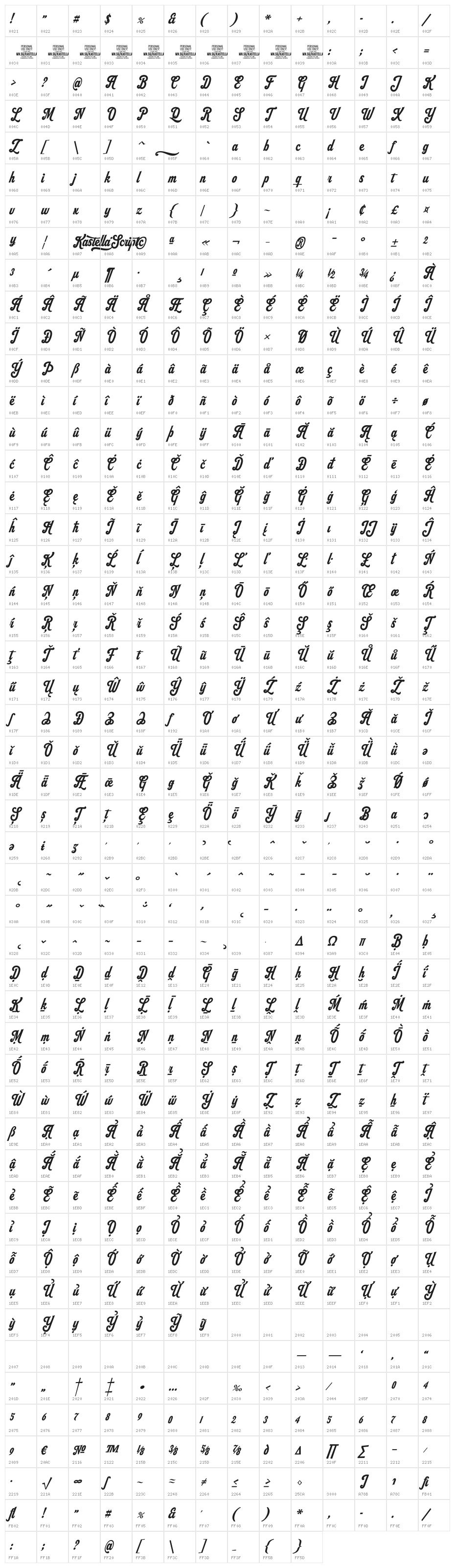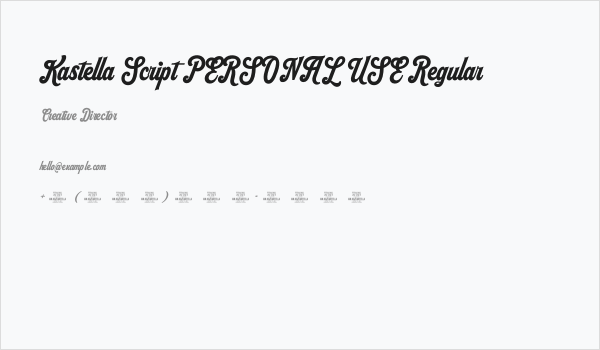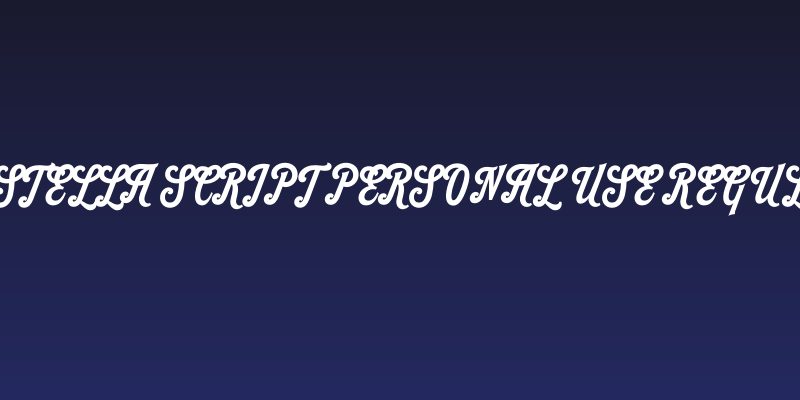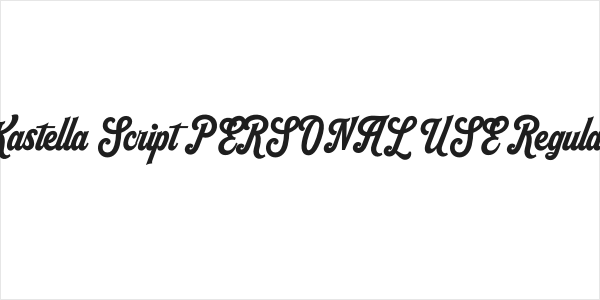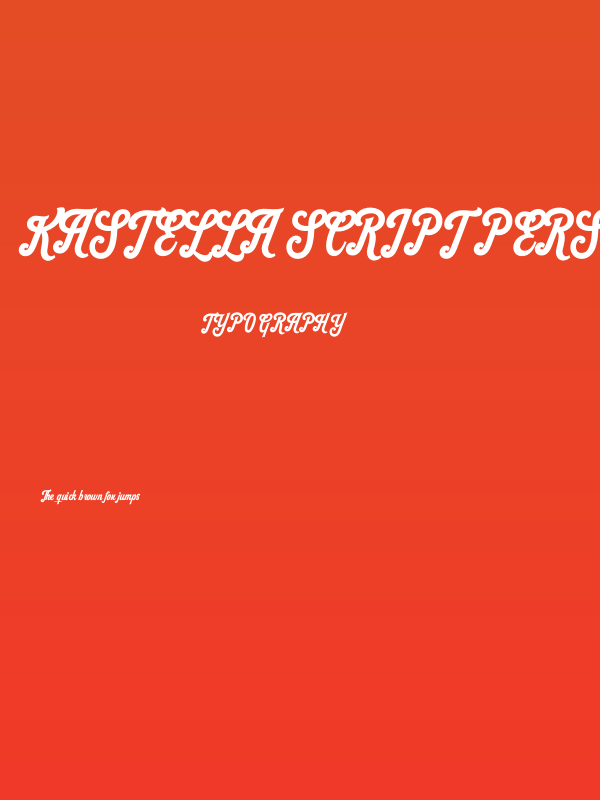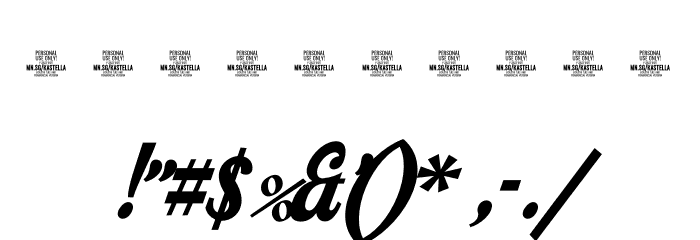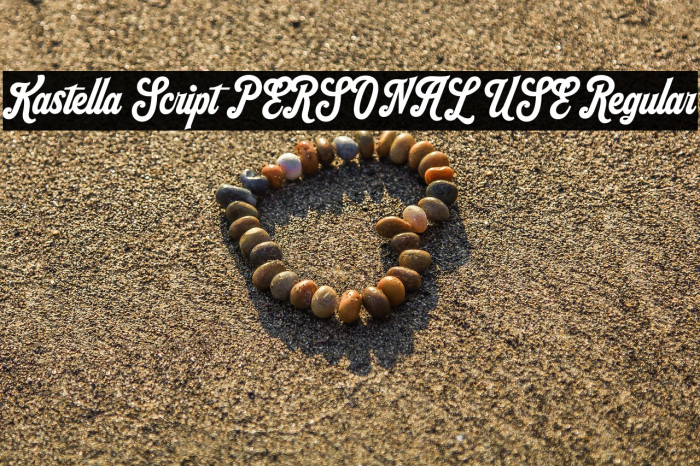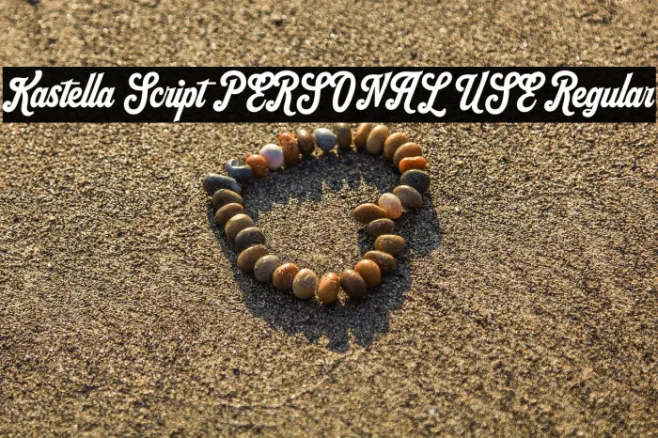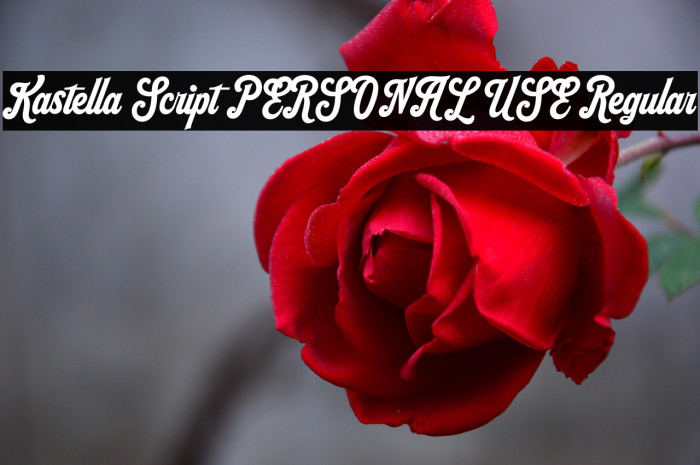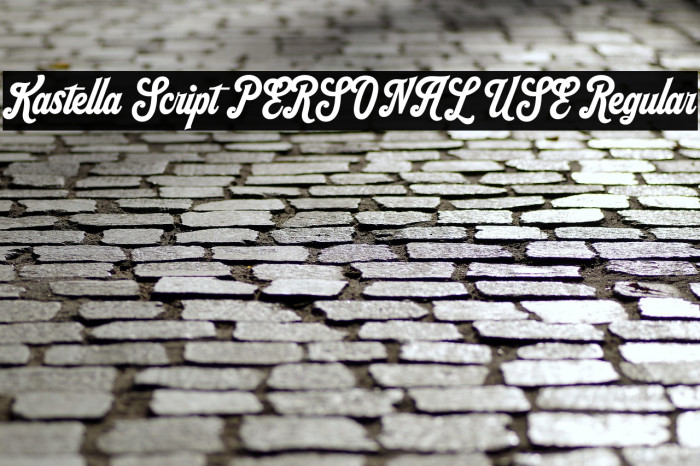
Kastella Script PERSONAL USE Regular Font
Kastella Script PERSONAL USE Regular Description
This script font features a flowing, cursive style with elegant loops and swashes. The uppercase letters are bold and prominent, with intricate details that add a touch of sophistication. The lowercase letters maintain a consistent flow, creating a harmonious and connected appearance. The numerals and special characters complement the overall design, maintaining the same fluidity and style. This font is perfect for projects that require a personal and artistic touch, such as invitations, greeting cards, and branding materials.
| Proposed Projects | Ideal for wedding invitations, greeting cards, branding, and artistic projects. |